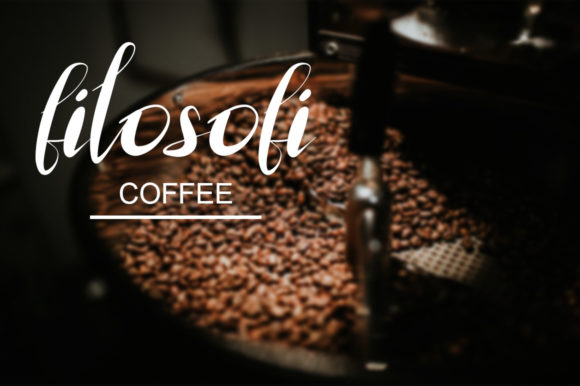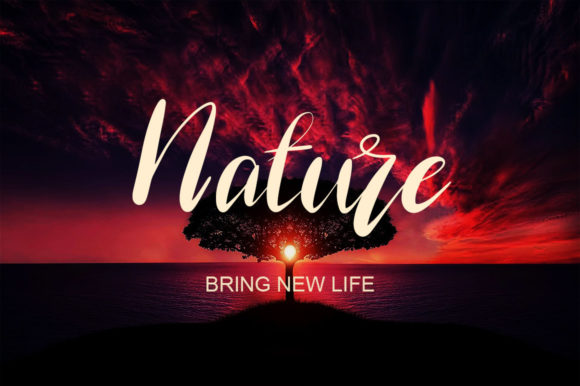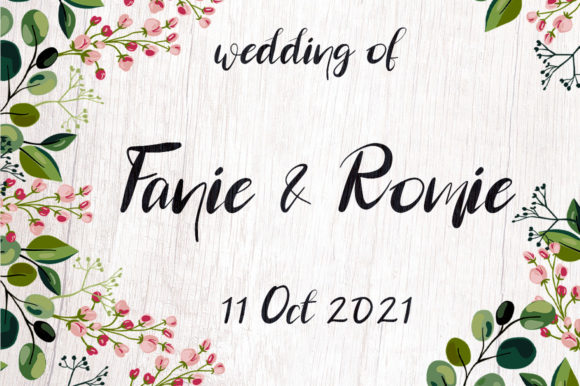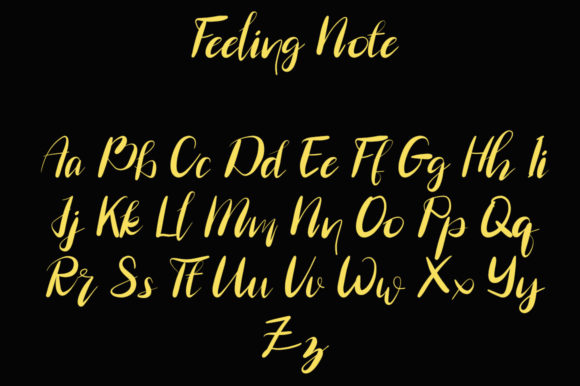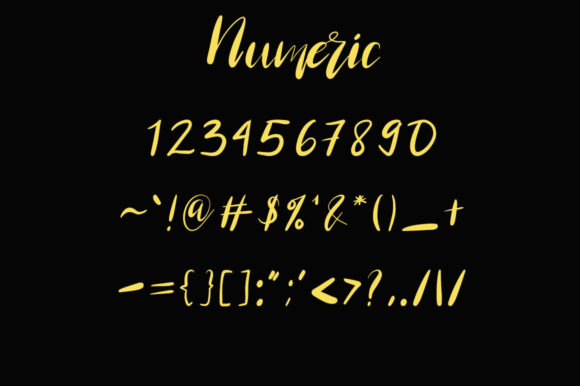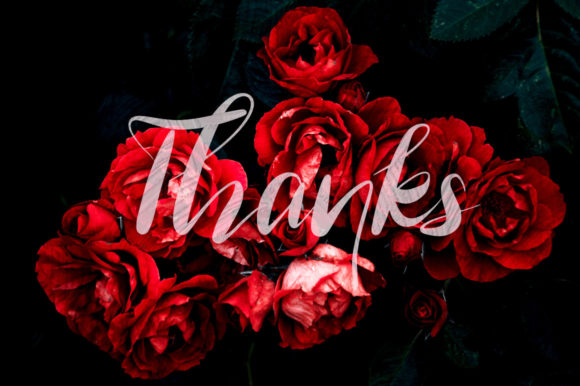
Discover the Elegance of Feeling Note Font: Elevate Your Designs with Delicate Flow and Timeless Style
In the world of typography, few fonts manage to capture the essence of elegance and sophistication as effectively as the Feeling Note Font. This exquisite typeface is designed to bring a delicate flow and an eternal style to your designs, making it the perfect choice for creating eye-catching logos, branding materials, and inspirational quotes. With its unique and beautiful touch, every letter in the Feeling Note Font is crafted to breathe life into your creative projects.
The Unique Charm of Feeling Note Font
What sets Feeling Note Font apart from other typefaces is its distinctive charm. Each letter is meticulously designed with a unique and beautiful touch, ensuring that your designs stand out with a personal and artistic flair. The font’s delicate flow is reminiscent of handwritten elegance, while its eternal style ensures that your creations remain timeless and relevant across various design trends.
Whether you’re a professional designer or a passionate crafter, Feeling Note Font offers a versatile and inspiring tool for your creative projects. For designers, this font provides a sophisticated element to elevate branding and advertising materials. For crafters, it offers a beautiful way to add a personal touch to handmade cards, journals, and other craft projects.
Key Features of Feeling Note Font
- Delicate Flow: The font’s smooth and flowing lines create a sense of elegance and grace, perfect for designs that require a touch of sophistication.
- Eternal Style: With its classic and timeless design, Feeling Note Font ensures that your creations remain stylish and relevant for years to come.
- Unique and Beautiful Touch: Every letter in the font is uniquely designed, offering a distinctive look that can make your designs stand out.
- Ease of Use: Feeling Note Font is easy to integrate into various design projects, making it accessible for both beginners and experienced designers.
Applications of Feeling Note Font
The versatility of Feeling Note Font makes it suitable for a wide range of applications. Here are some of the most popular uses:
- Logo Design: Create memorable and elegant logos that capture the essence of your brand.
- Branding: Enhance your brand’s visual identity with a font that exudes sophistication and style.
- Quotes and Typography: Bring inspirational quotes and typographic designs to life with the font’s beautiful and flowing lines.
- Stationery and Invitations: Add a touch of elegance to your stationery, invitations, and greeting cards.
- Digital and Print Media: Use Feeling Note Font in digital media, such as websites and social media graphics, as well as in print materials, like brochures and posters.
Tips for Maximizing the Impact of Feeling Note Font
To get the most out of Feeling Note Font, consider the following tips:
- Pair with Complementary Fonts: Combine Feeling Note Font with simpler fonts to create contrast and highlight key information.
- Adjust Size and Color: Experiment with different sizes and colors to emphasize certain words or phrases.
- Use in Combination with Images: Pair the font with relevant images or illustrations to enhance the visual appeal of your designs.
- Maintain Readability: Ensure that your text remains readable by considering the font size and the background color.
| Font Name | Feeling Note Font |
| Author | permanacreation |
Feeling Note Font is a versatile and elegant typeface that can elevate your designs with its delicate flow and eternal style. Whether you’re creating logos, branding materials, or inspirational quotes, this font offers a unique and beautiful touch that will make your designs come alive. For designers and crafters looking to add a touch of sophistication and elegance to their projects, Feeling Note Font is an excellent choice.
Embrace the beauty and versatility of Feeling Note Font in your next creative project, and discover how it can help you create stunning and memorable designs.